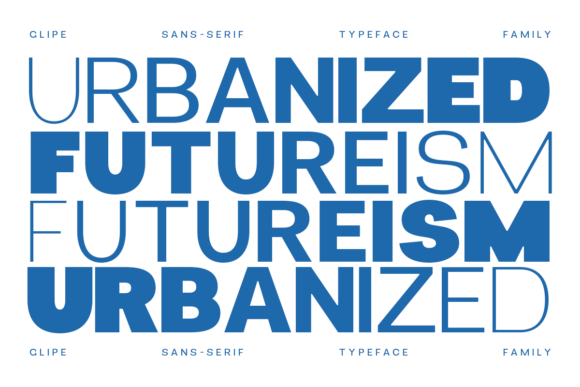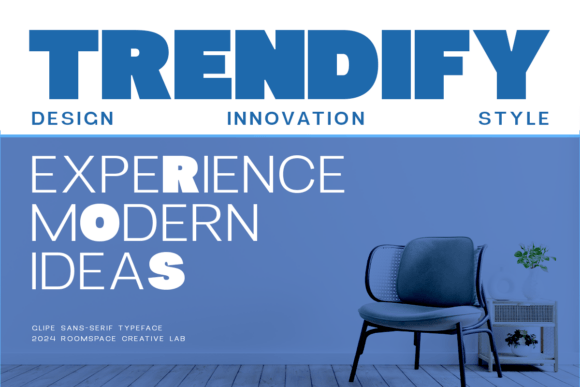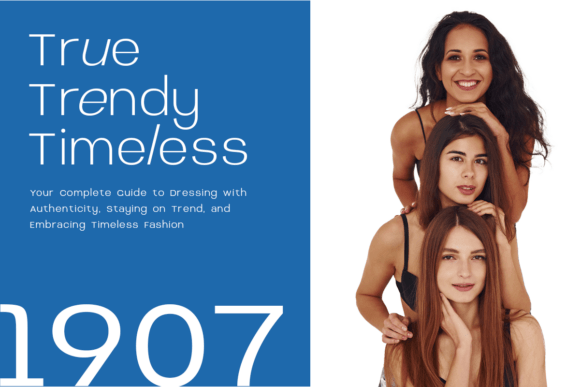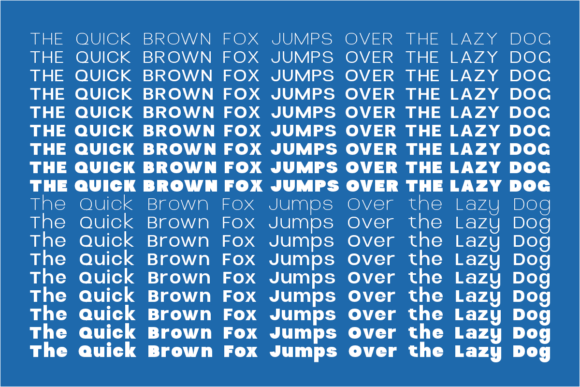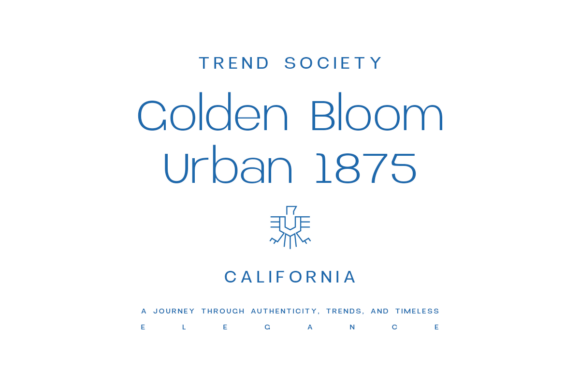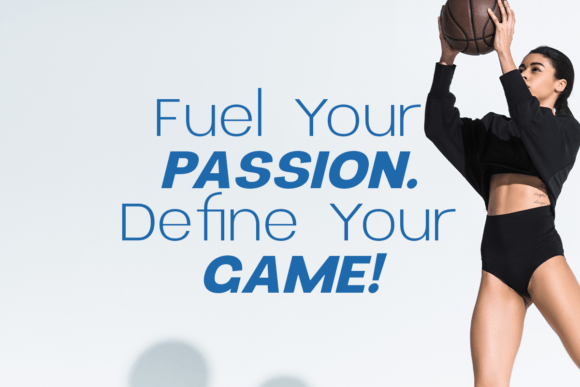
Introducing Glipe Font: The Ultimate Sans-Serif Typeface for Modern Design
In the world of typography, a font can make or break a design. With the ever-evolving landscape of digital and print media, designers and crafters are constantly on the lookout for typefaces that can adapt to various needs. This is where Glipe Font comes in – a cutting-edge sans-serif typeface designed for versatility and modern appeal.
What is Glipe Font?
Glipe is a meticulously crafted sans-serif typeface that boasts an impressive 18 styles. This extensive range includes 9 weights, ranging from Thin to Black, each paired with a corresponding Oblique style. This versatility makes Glipe the perfect choice for a wide range of design needs, from lightweight and subtle text to bold, commanding headlines.
Key Features of Glipe Font
- 18 Styles: 9 weights (Thin to Black) with 9 corresponding Oblique styles
- Versatility: Suitable for various design needs, from subtle text to bold headlines
- Modern Appeal: A cutting-edge sans-serif typeface designed for contemporary design
- Legibility: Clear and legible, even at small font sizes
Why Choose Glipe Font?
With so many typefaces available, why choose Glipe Font? Here are just a few reasons why designers and crafters are falling in love with this versatile sans-serif typeface:
Unparalleled Versatility
Glipe’s extensive range of styles makes it an ideal choice for designers who need a single typeface that can handle multiple design needs. Whether you’re working on a branding project, website design, or print materials, Glipe has got you covered.
Modern and Fresh
Glipe’s modern design ensures that your typography stays fresh and relevant. Its clean lines, subtle curves, and carefully crafted letterforms make it perfect for designs that require a contemporary feel.
Legibility and Readability
Glipe’s clear and legible design ensures that your text is easy to read, even at small font sizes. This makes it an excellent choice for body text, captions, and other applications where readability is crucial.
Design Applications for Glipe Font
Glipe’s versatility makes it suitable for a wide range of design applications, including:
- Branding and Logo Design: Create a lasting impression with Glipe’s bold and commanding headlines or subtle and elegant body text.
- Website Design: Use Glipe to create a cohesive and modern typography experience across your website.
- Print Materials: From brochures to business cards, Glipe is the perfect choice for print designs that require a professional and contemporary feel.
Tips for Using Glipe Font
To get the most out of Glipe Font, here are a few tips to keep in mind:
Experiment with Weights and Styles
Don’t be afraid to experiment with different weights and styles to create visual hierarchy and add depth to your design.
Pair with Other Typefaces
Glipe pairs well with other sans-serif typefaces. Try pairing it with a serif font for a classic and modern contrast.
Adjust Font Sizes and Line Heights
Adjust font sizes and line heights to create a clear and readable typography experience.
In conclusion, Glipe Font is a versatile and modern sans-serif typeface that is perfect for designers and crafters looking for a single typeface that can handle multiple design needs. With its extensive range of styles, modern appeal, and legibility, Glipe is sure to become a go-to choice for typography enthusiasts. Whether you’re working on a branding project, website design, or print materials, Glipe Font is an excellent choice for creating stunning and effective typography.